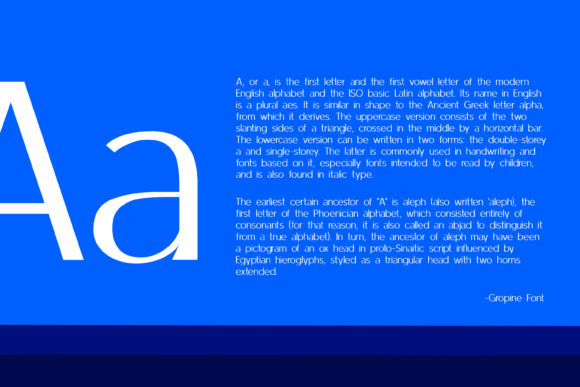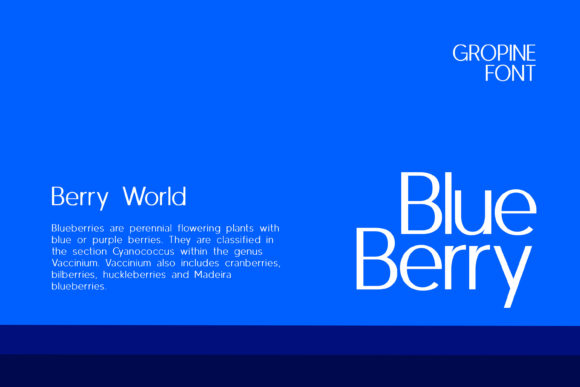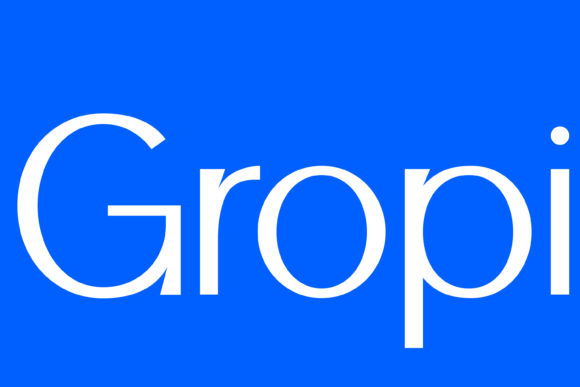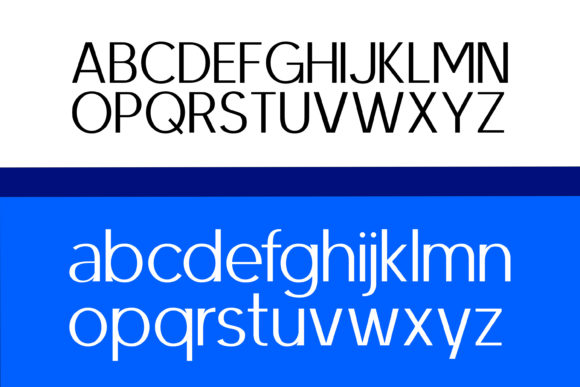
Gropine Font: Elevate Your Designs with a Minimal and Neat Display Font
In the world of typography, a font can make or break a design. A well-chosen font can elevate your creative project, adding a touch of personality and sophistication. If you’re a designer or crafter looking for a versatile and stylish font, look no further than Gropine Font. In this article, we’ll explore the features and benefits of Gropine, and how it can help you take your designs to the next level.
What is Gropine Font?
Gropine is a minimal and neat display font, designed to make a statement. Its clean lines, simple shapes, and elegant curves make it perfect for a wide range of projects, from branding and advertising to packaging and digital media. With its versatility and charm, Gropine can easily be matched to an incredibly large set of projects, so add it to your creative ideas and notice how it makes them stand out!
Key Features of Gropine Font
- Minimalist Design: Gropine’s minimalist design makes it perfect for modern and contemporary designs. Its simple shapes and clean lines create a sleek and sophisticated look that’s sure to impress.
- Neat and Elegant: Gropine’s neat and elegant curves add a touch of refinement to any design. Its classic look makes it suitable for a wide range of projects, from luxury brands to craft and DIY projects.
- Versatile: Gropine is a versatile font that can be used in a variety of contexts, from digital media to print materials. Its scalability and legibility make it perfect for use in titles, headings, and body text.
Benefits of Using Gropine Font
So why choose Gropine Font for your next design project? Here are just a few benefits of using this stylish and versatile font:
- Adds a Touch of Sophistication: Gropine’s elegant design adds a touch of sophistication to any project, making it perfect for luxury brands, high-end products, and creative designs.
- Improves Readability: Gropine’s clean lines and simple shapes make it easy to read, even at small sizes. This makes it perfect for use in body text, as well as headings and titles.
- Enhances Creativity: With Gropine, you can add a touch of personality to your designs. Its minimalist design and elegant curves make it a great choice for creative projects, such as craft and DIY designs.
How to Use Gropine Font in Your Designs
Using Gropine Font in your designs is easy. Here are a few tips to get you started:
- Pair it with Other Fonts: Gropine pairs well with a variety of fonts, from serif and sans-serif fonts to script and decorative fonts. Experiment with different font combinations to create a unique look.
- Use it in Titles and Headings: Gropine’s elegant design makes it perfect for use in titles and headings. Use it to add a touch of sophistication to your designs.
- Experiment with Colors and Textures: Gropine’s minimalist design makes it a great choice for use with different colors and textures. Experiment with different color schemes and textures to create a unique look.
In conclusion, Gropine Font is a versatile and stylish font that’s perfect for designers and crafters looking to elevate their designs. Its minimalist design, neat and elegant curves, and versatility make it a great choice for a wide range of projects. Whether you’re working on a branding project, a craft design, or a digital media project, Gropine is sure to make your designs stand out. So why not give it a try and see the difference it can make?